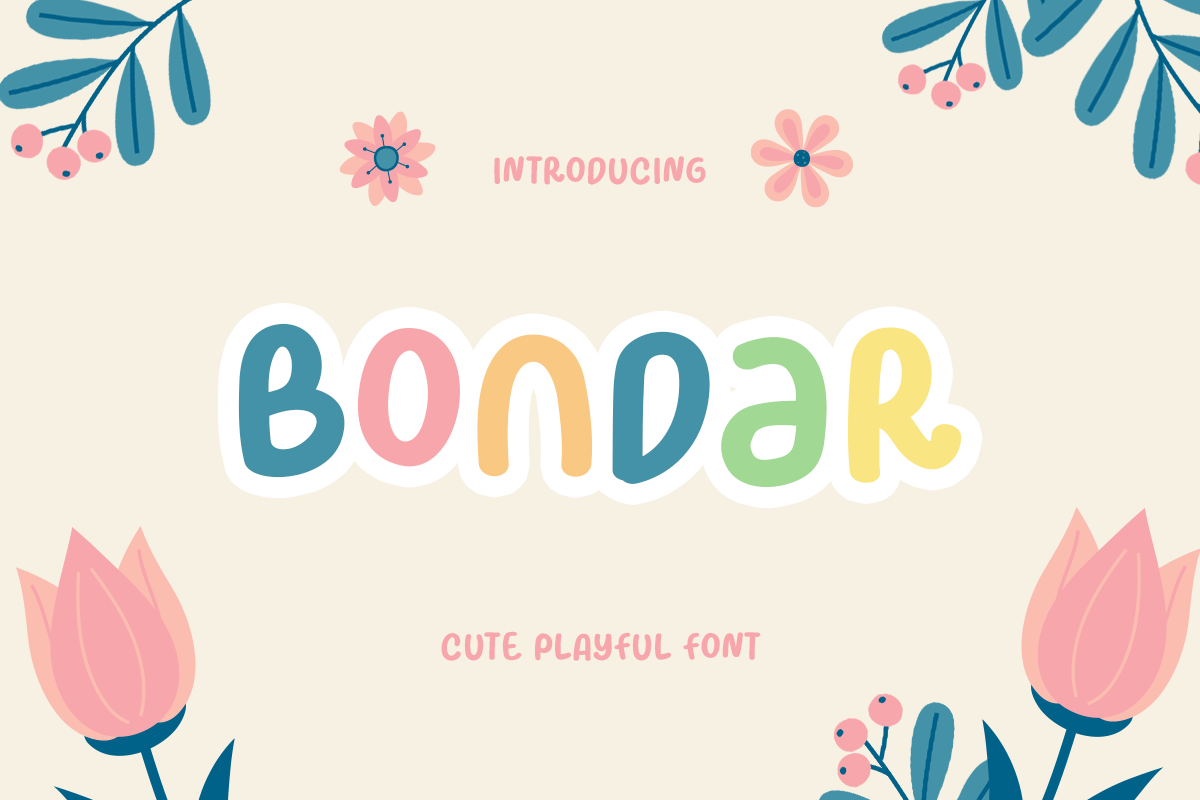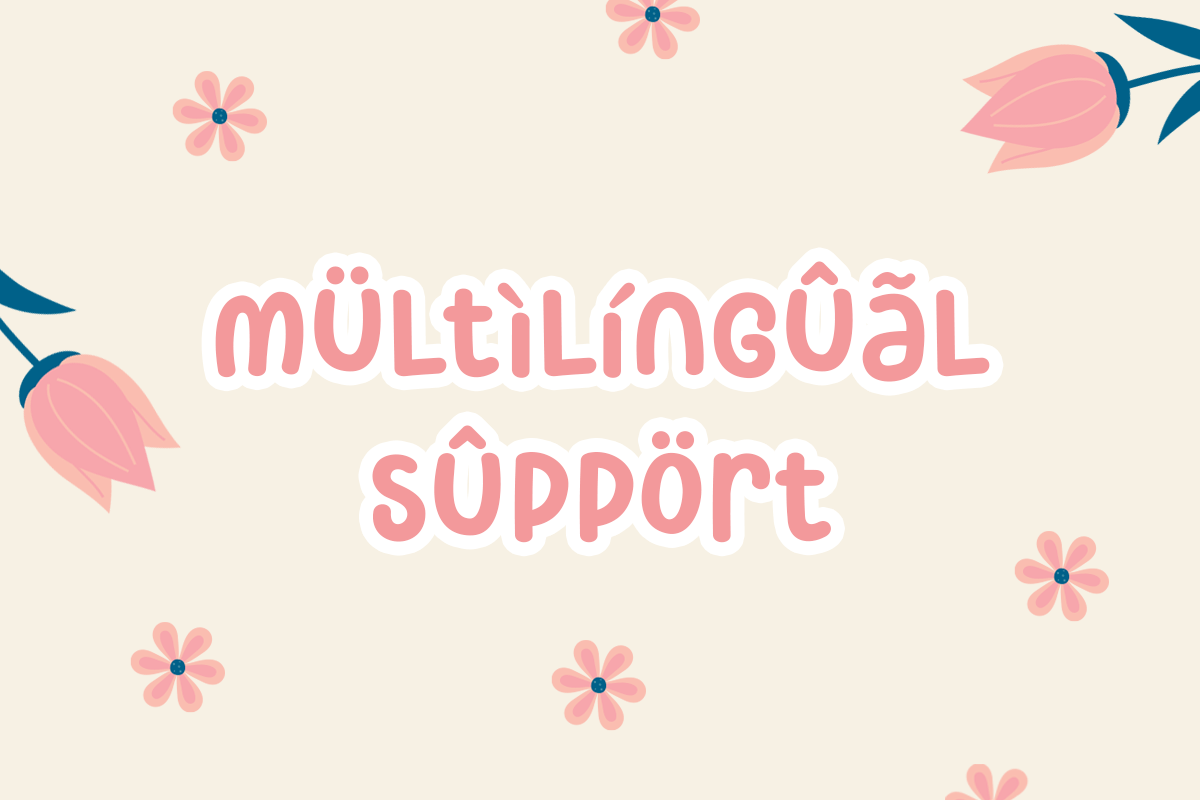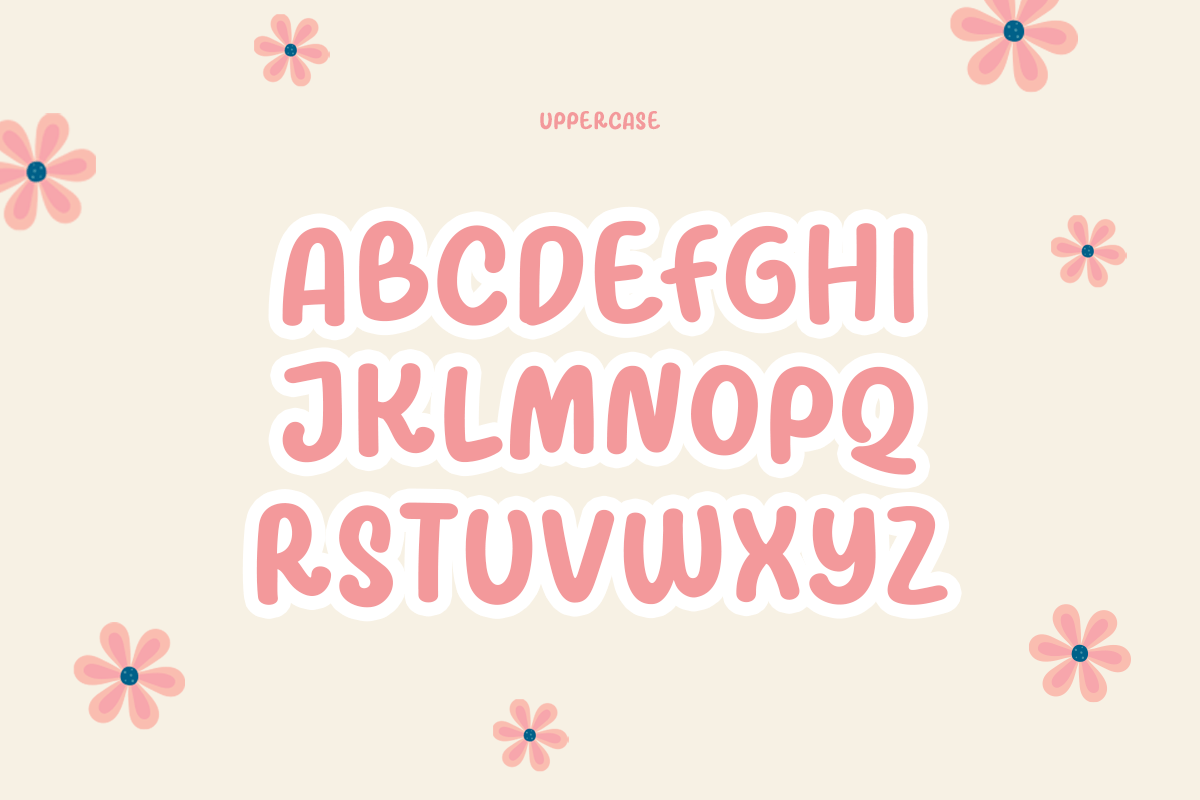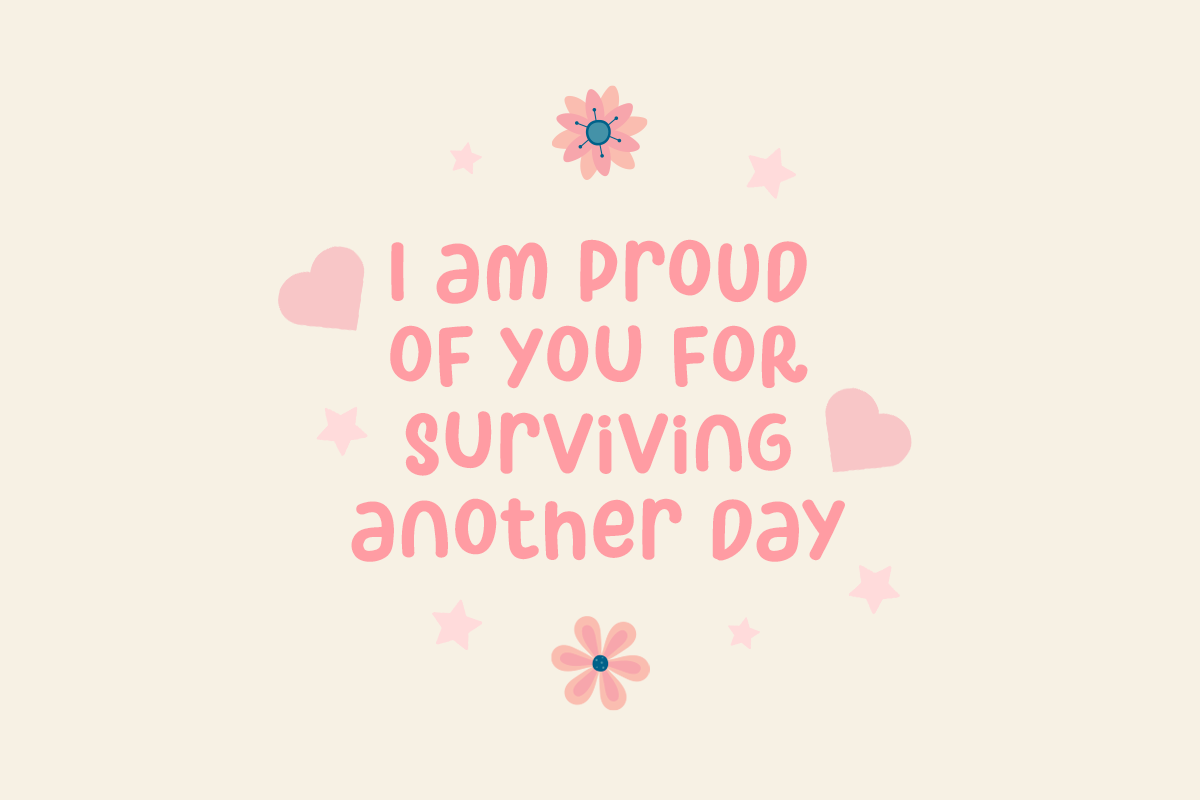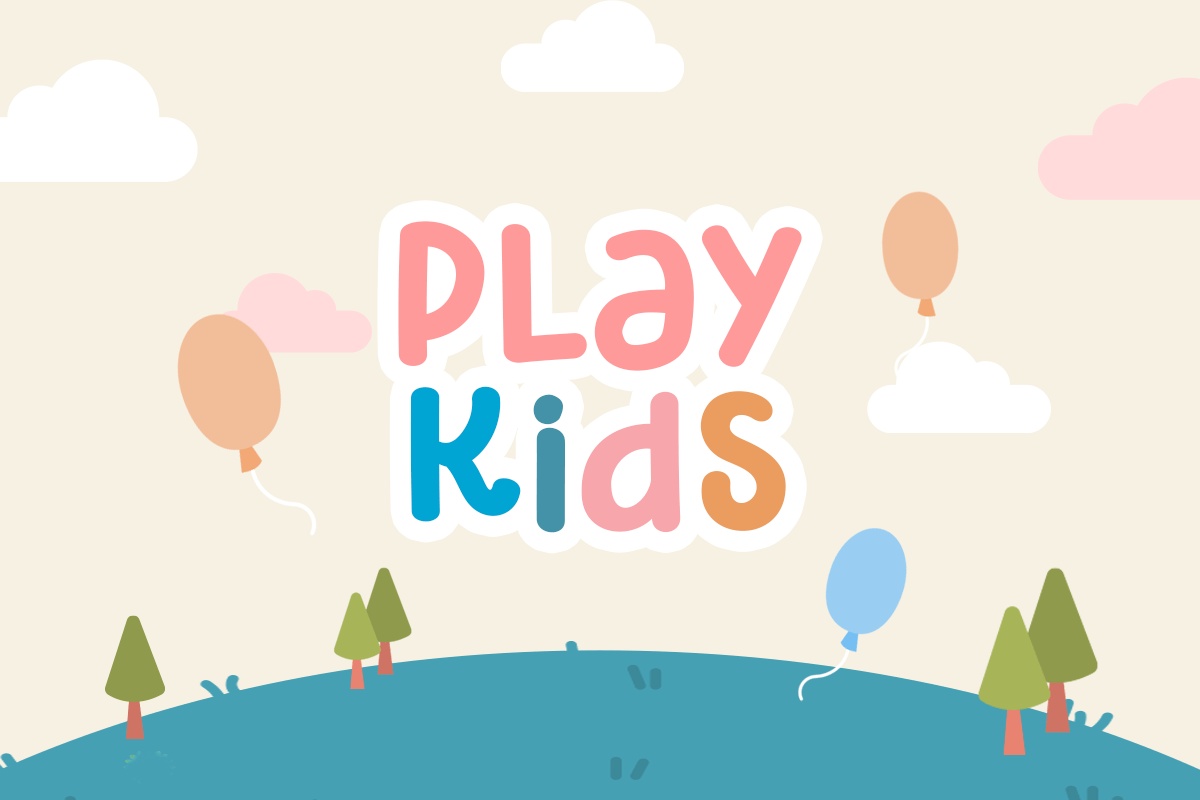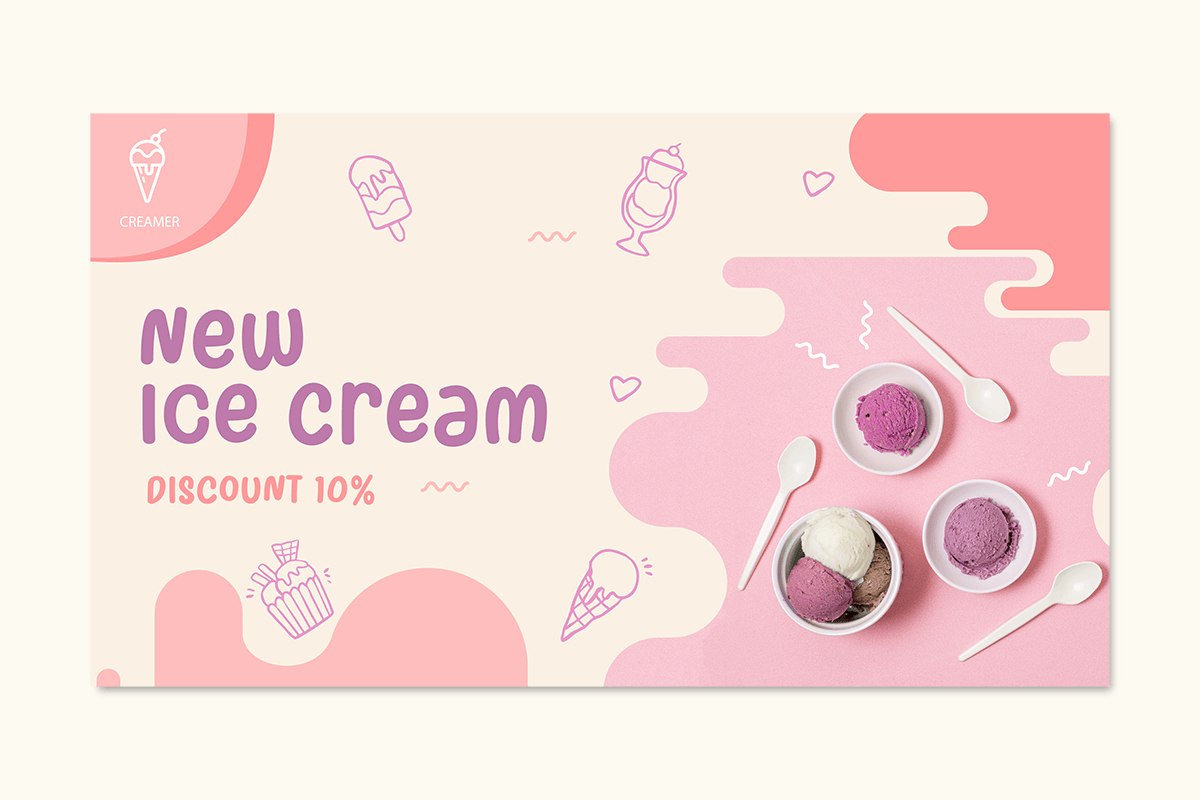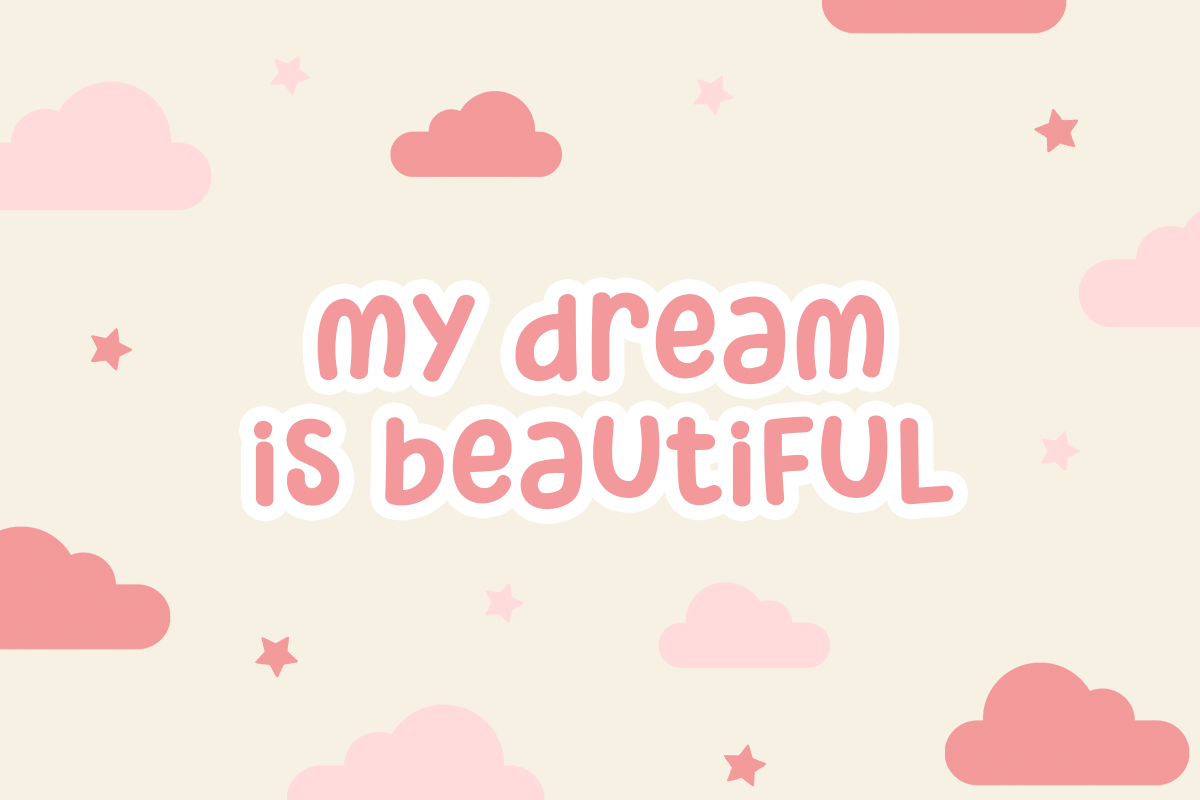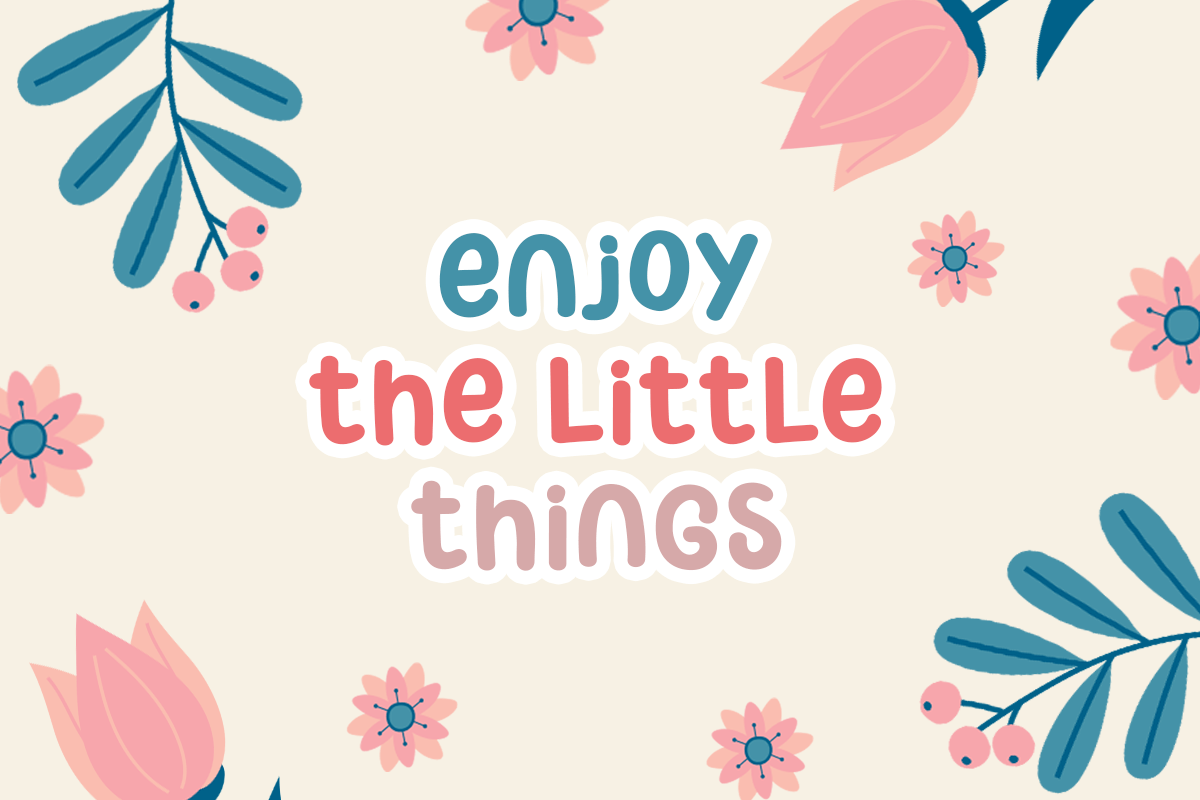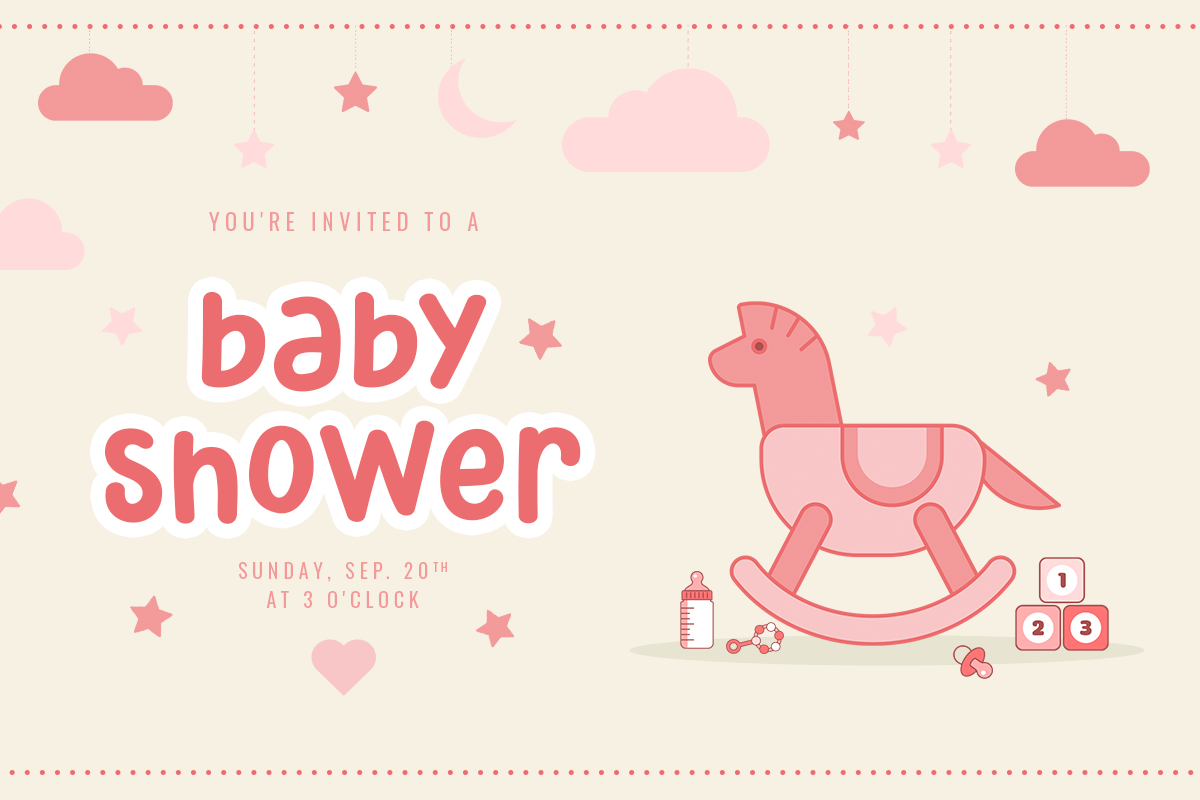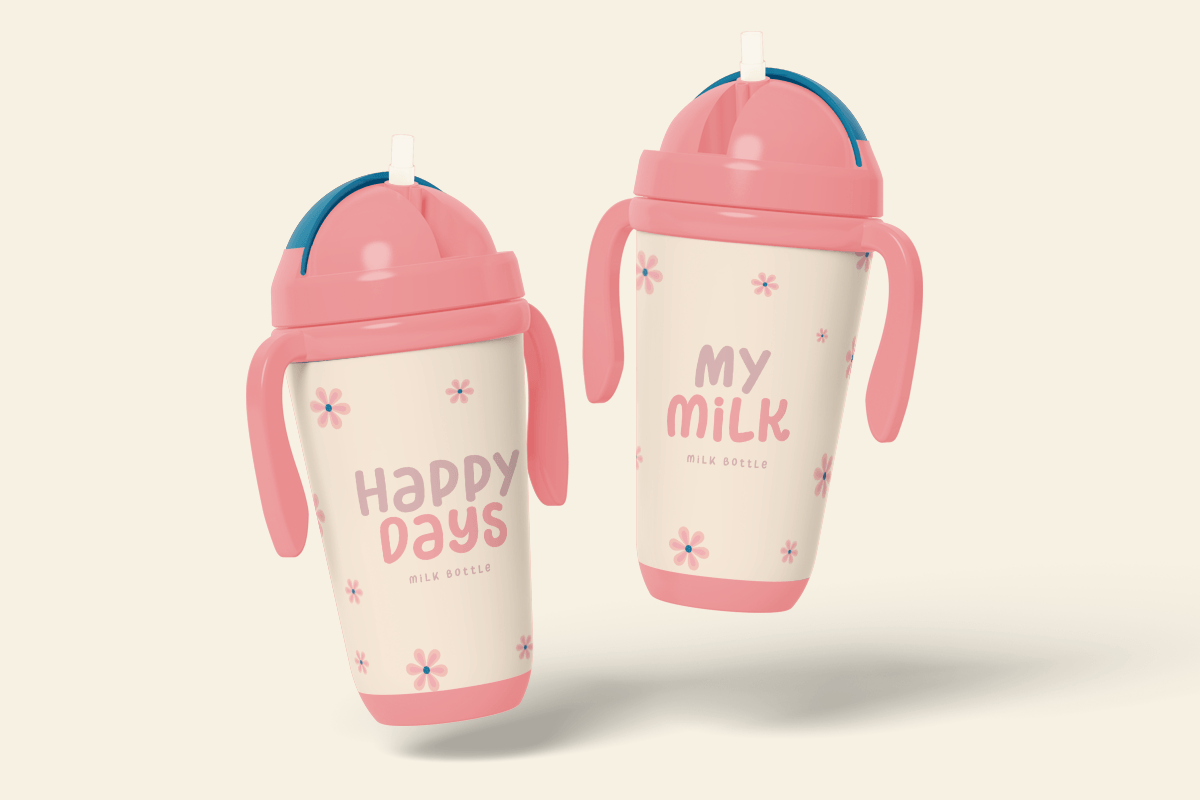
BONDAR
-Cute Playful Font
Bondar
Bondar is a fun and playful hand-lettered bold typeface. It is perfect for logotype, flyer, greeting cards, packaging, book cover, printed quotes, headings, etc.